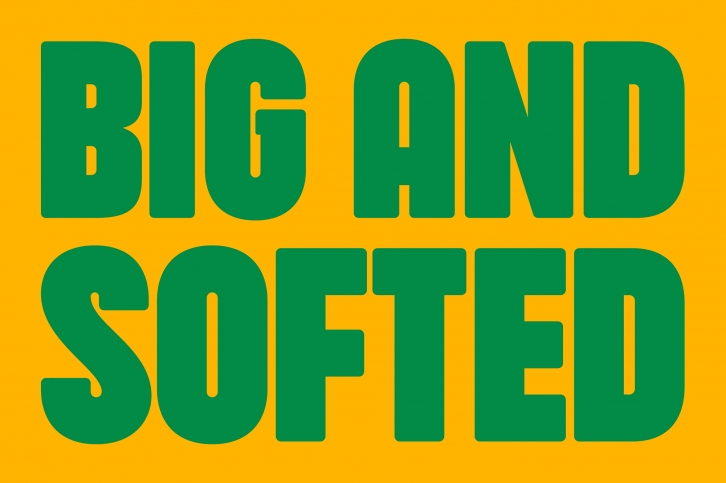
Hartone Softed is a cool, bold, thick lettered display font. No matter the topic, this font will be an incredible asset to your fonts’ library, as it has the potential to elevate any creation.Â